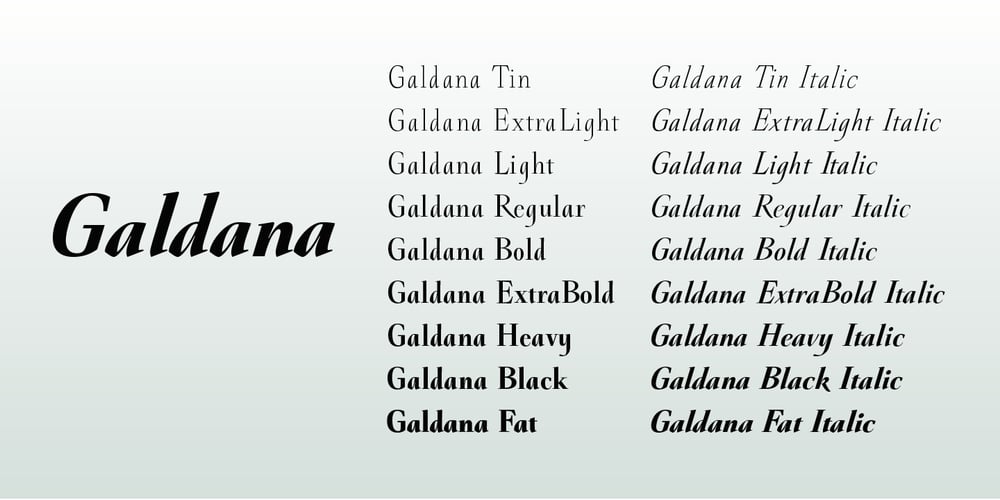
Galdana Font Family was designed by Olcar Alcaide and published by Eurotypo. Galdana contains 18 styles and family package options. Galdana font family is a Roman serifs typeface, whose most relevant characteristic is the slanted angle of its true italic, at seventeen degrees. Its design was inspired by one of the most prominent American calligraphers of the last century, the book designer Oscar Ogg. Galdana contains 18 styles: starting from thin to ending in a fat typeface. This family is completed with multilingual support and a set of OpenType features such as stylistic alternates, swashes, and ligatures.